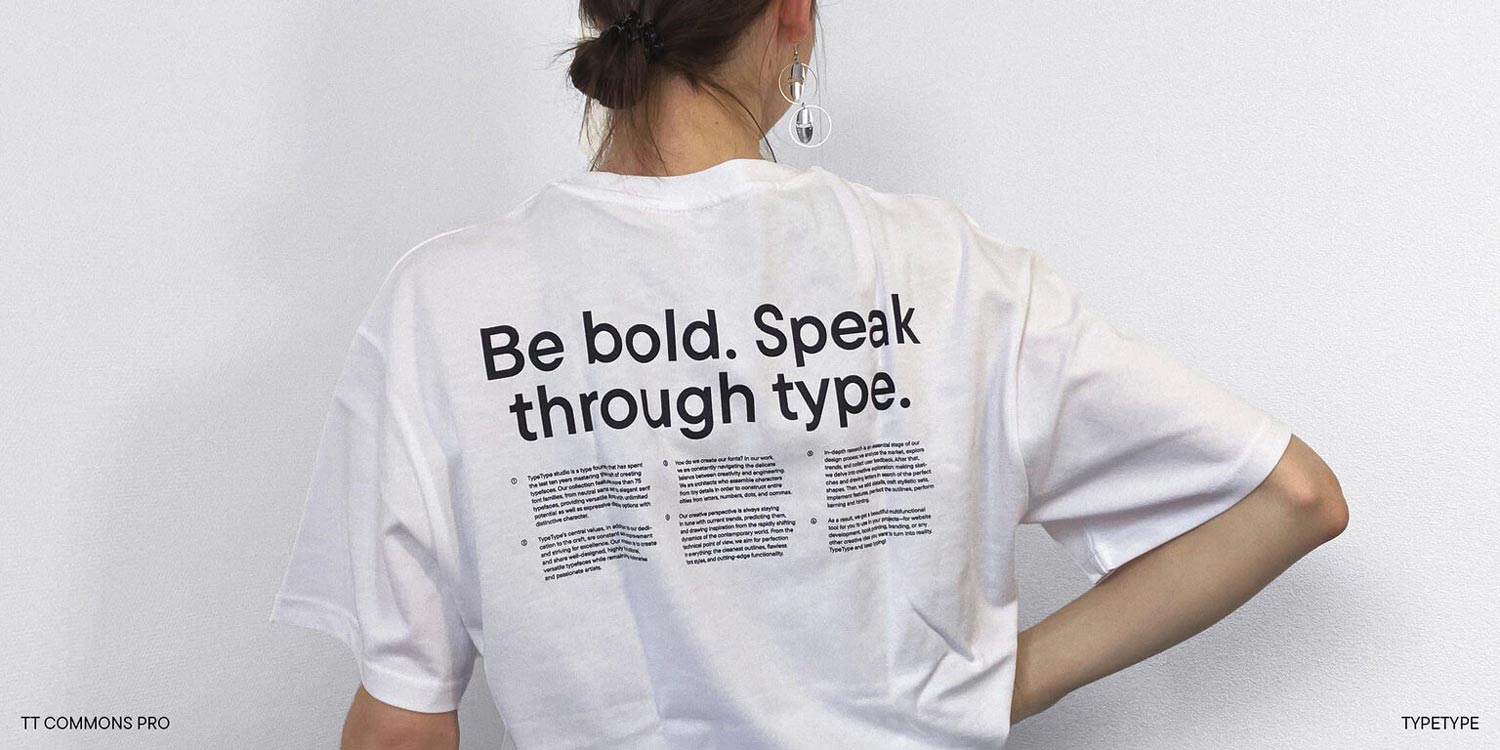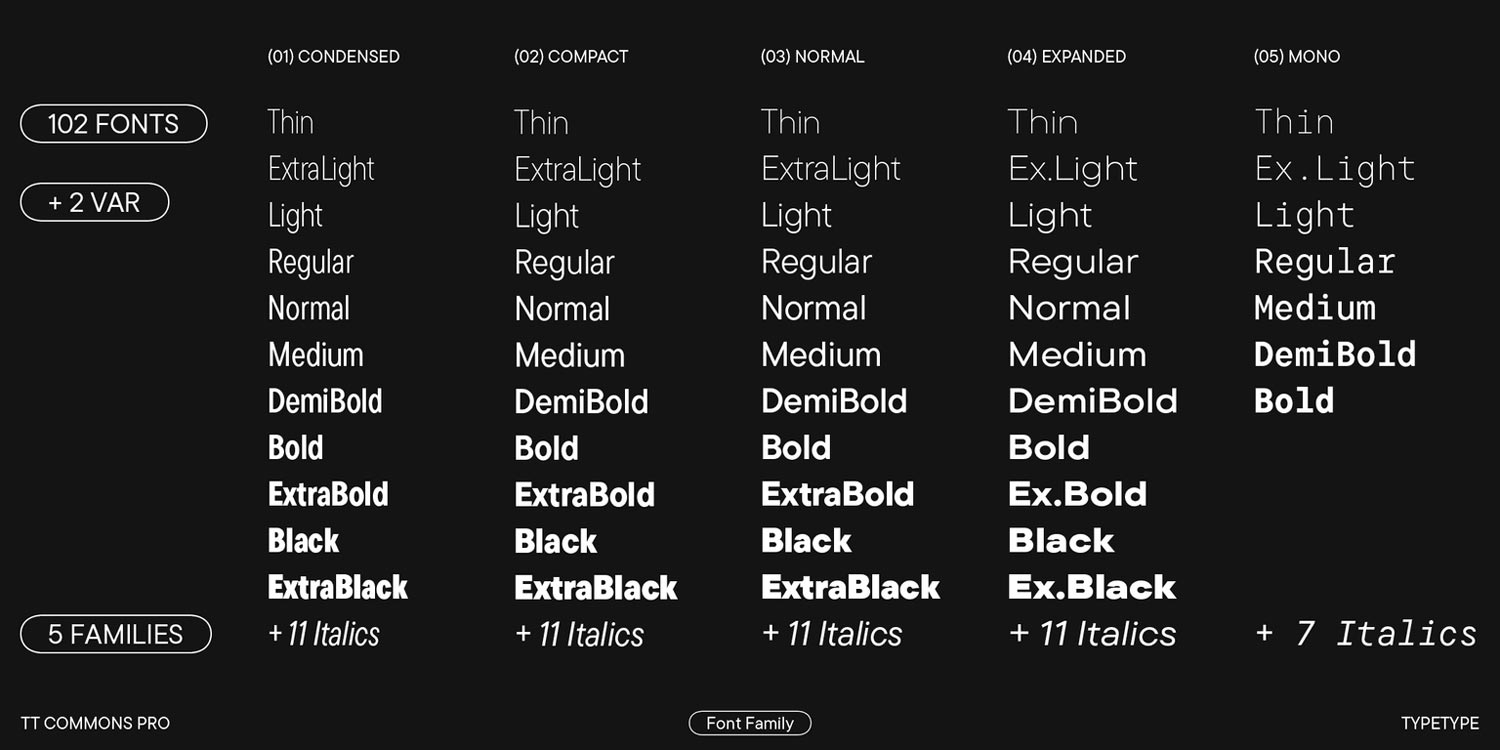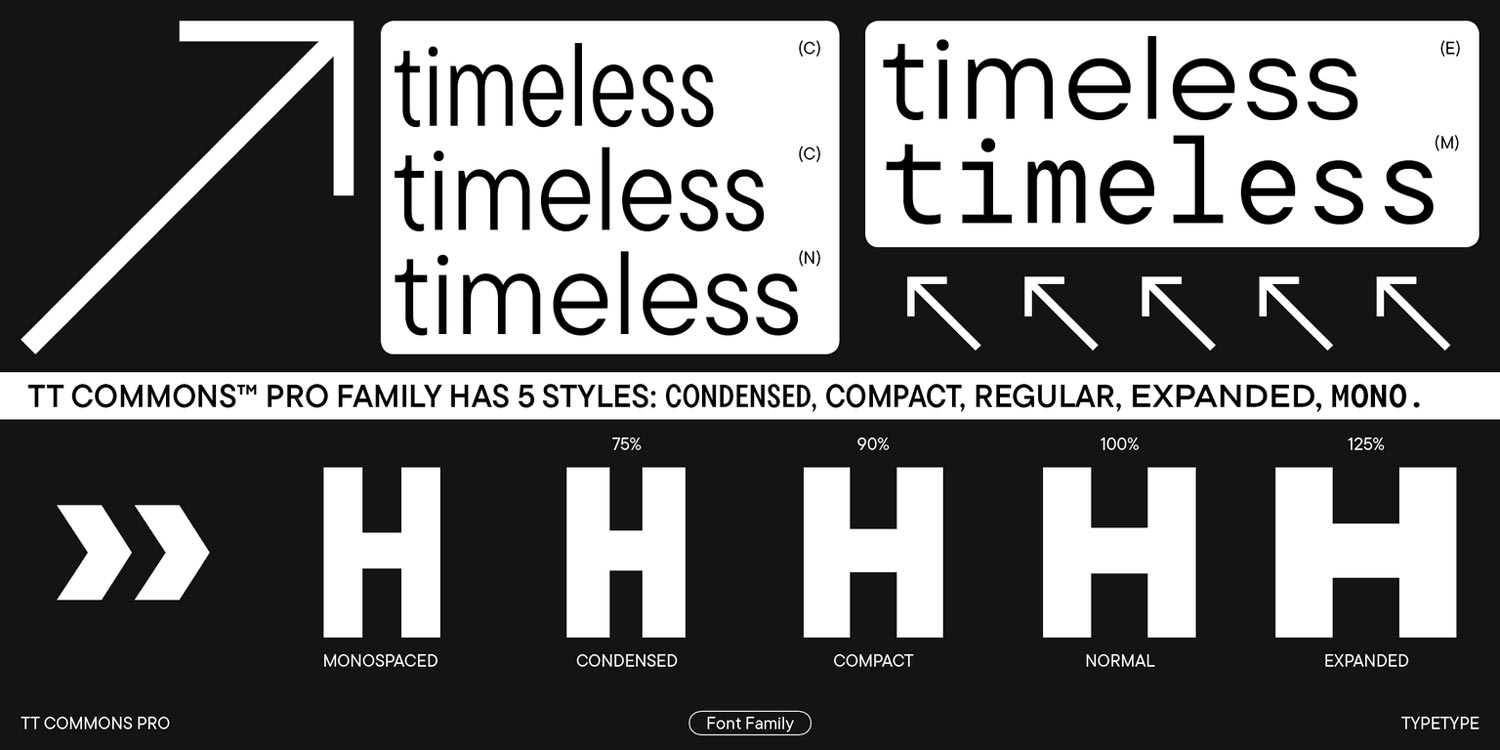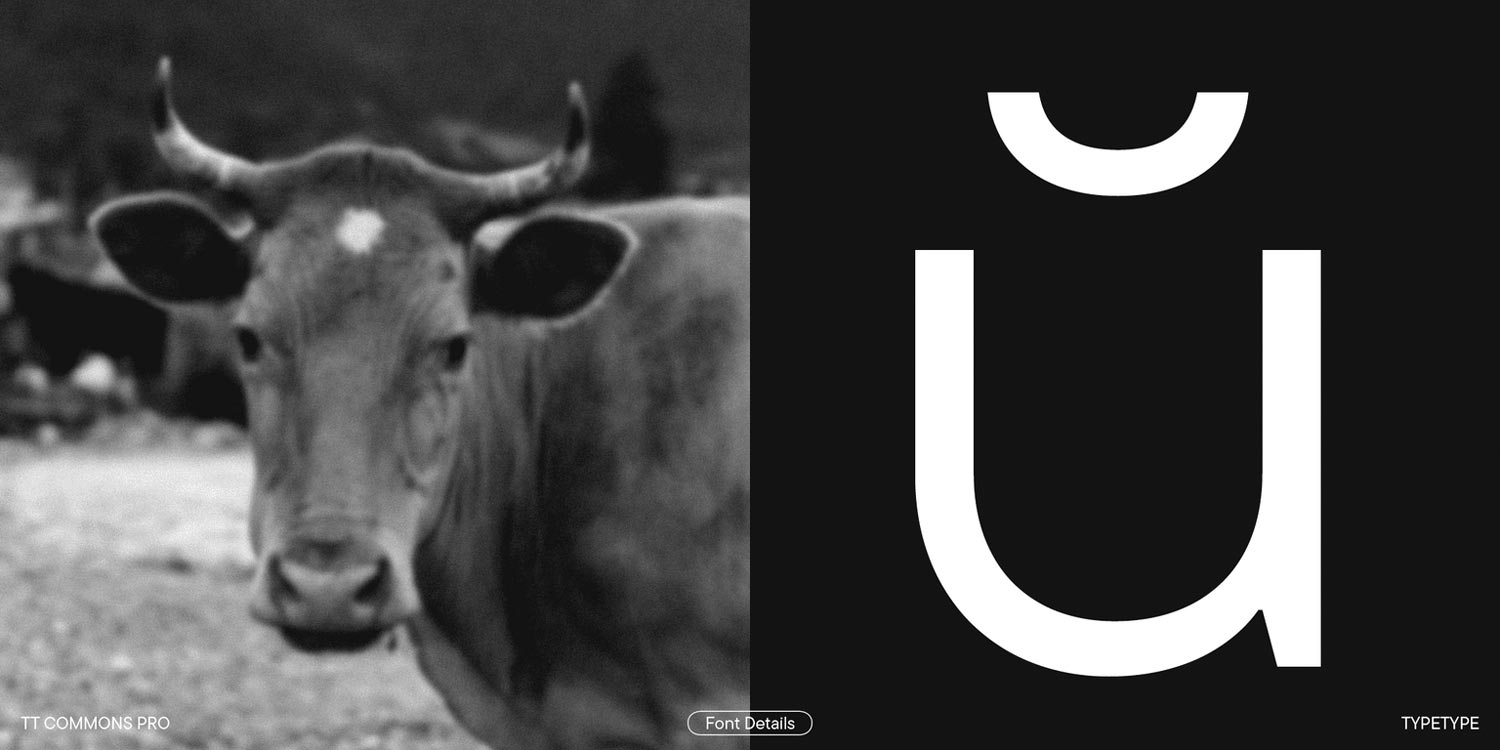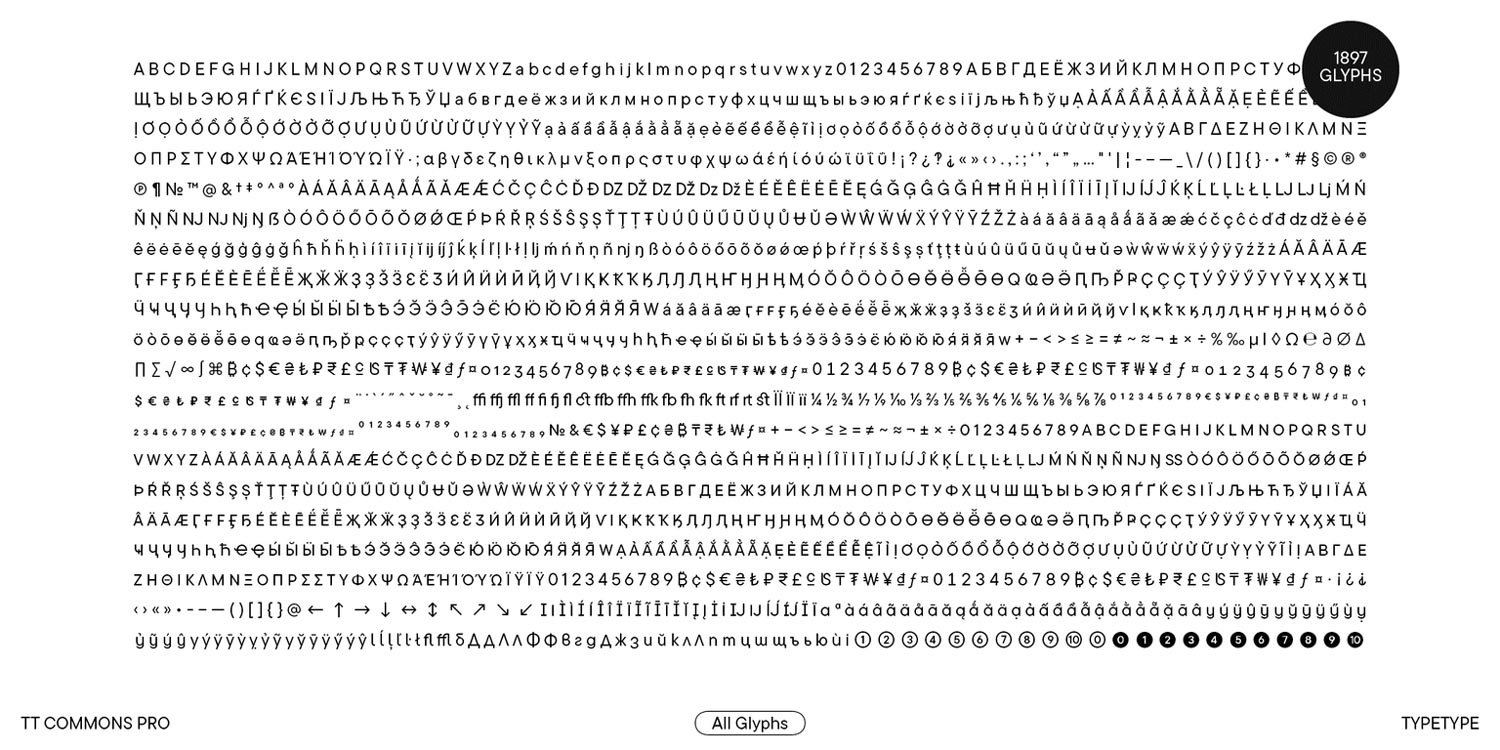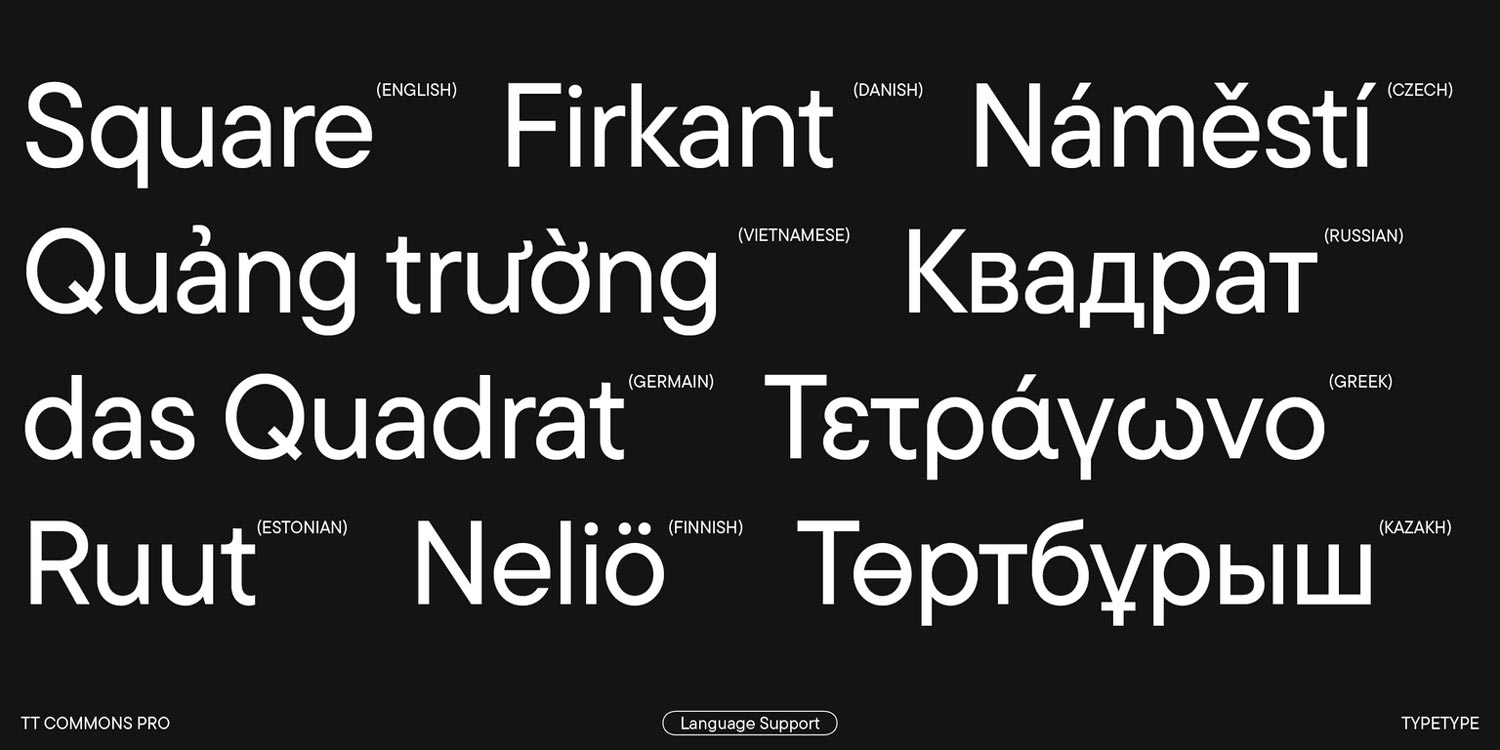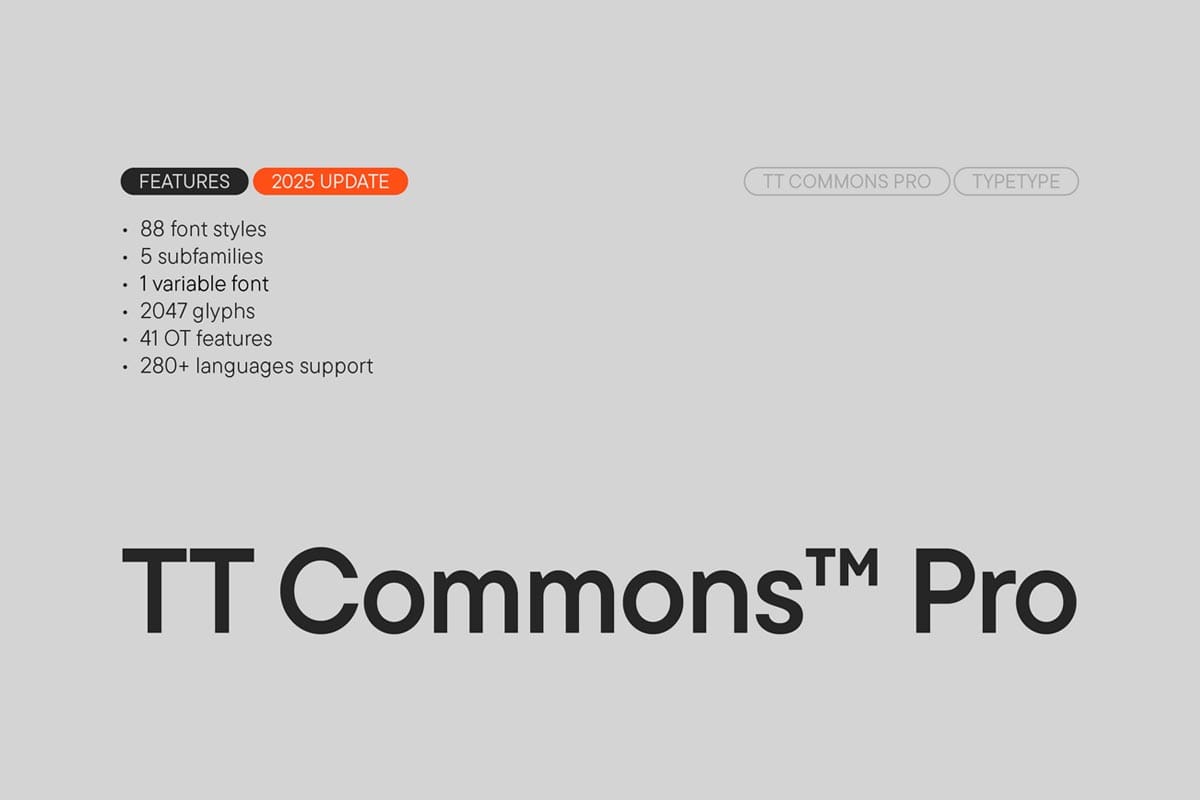
TT Commons Pro Font Family, version 3.500! (Update 2025)
We have improved this best-selling version to make it even better: expanding the character set, adding Greek alphabet support for four subgroups, updating OpenType features, and refining kerning and hinting.
TT Commons Pro is a geometric sans serif. It is one of the studio’s most popular fonts, known for its versatility, large character set supporting over 280 languages, and functional OpenType features.
TT Commons Pro has become our best-selling product for a reason: its range of applications is limitless and its practical capabilities are endless! This font is used in various contexts and fields, from tech companies and clothing brands to charities, food products, and many other areas. If you need a versatile typeface suitable for both everyday tasks and creative designs—you’ve found it!
We continuously update this font by releasing regular technical updates and expanding its character set. For example, version 3.400 boasts new characters for the extended Latin and Cyrillic alphabets. We have also added sum, som, and tögrög symbols for all currencies and cases, along with uppercase and lowercase currency symbols.
TT Commons Pro typeface includes:
- 5 different widths/subfamilies: Normal with classic proportions, narrower-proportioned Condensed and Compact, wide-proportioned Expanded, and Mono where each character takes up the same width;
- 22 font styles in the Normal, Compact, Condensed, and Expanded widths/subfamilies: Thin, ExtraLight, Light, Regular, Normal, Medium, DemiBold, Bold, ExtraBold, Black, ExtraBlack, and italics mirroring these widths;
- 14 font styles in TT Commons™️ Pro Mono: Thin, ExtraLight, Light, Regular, Medium, DemiBold, Bold, and italics mirroring these styles;
- 2 variable fonts, TT Commons™️ Pro Variable, with the width, slope, and weight axes of variation, and TT Commons™️ Pro Mono adjustable in weight and slope;
- 1546+ characters in the set of each Mono version font style, and 1897 characters in each Normal, Condensed, Expanded, and Compact font style;
- 280+ languages support, including Greek and Vietnamese;
- flawless kerning and manual TrueType hinting;
- 36 OpenType features: various ligatures, fractions, numerators, superscripts, alternate stylistic sets, and localization features.
The capabilities of TT Commons Pro extend beyond boundaries. This font shines brightest in web, print, branding, packaging design, and apps.